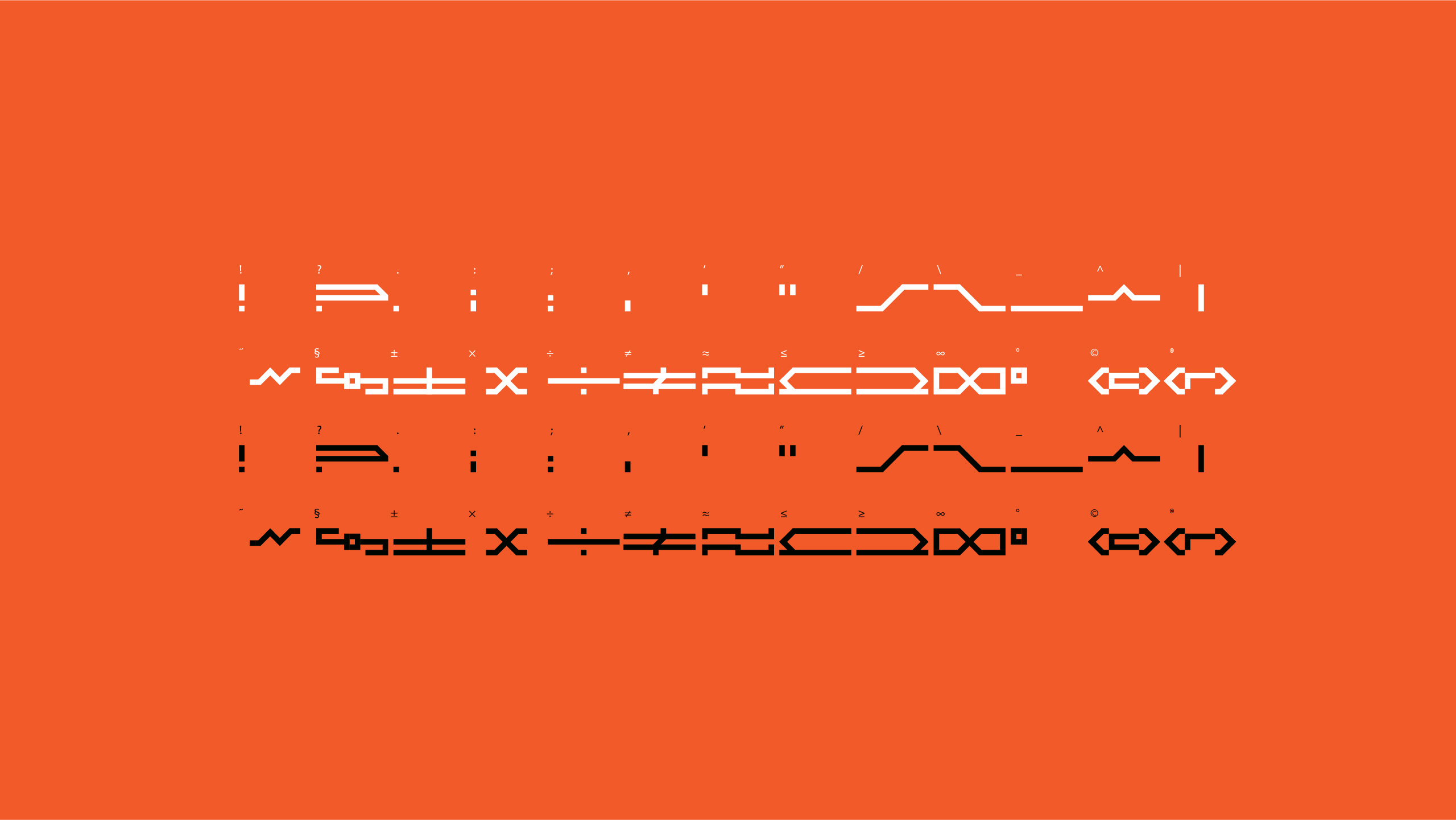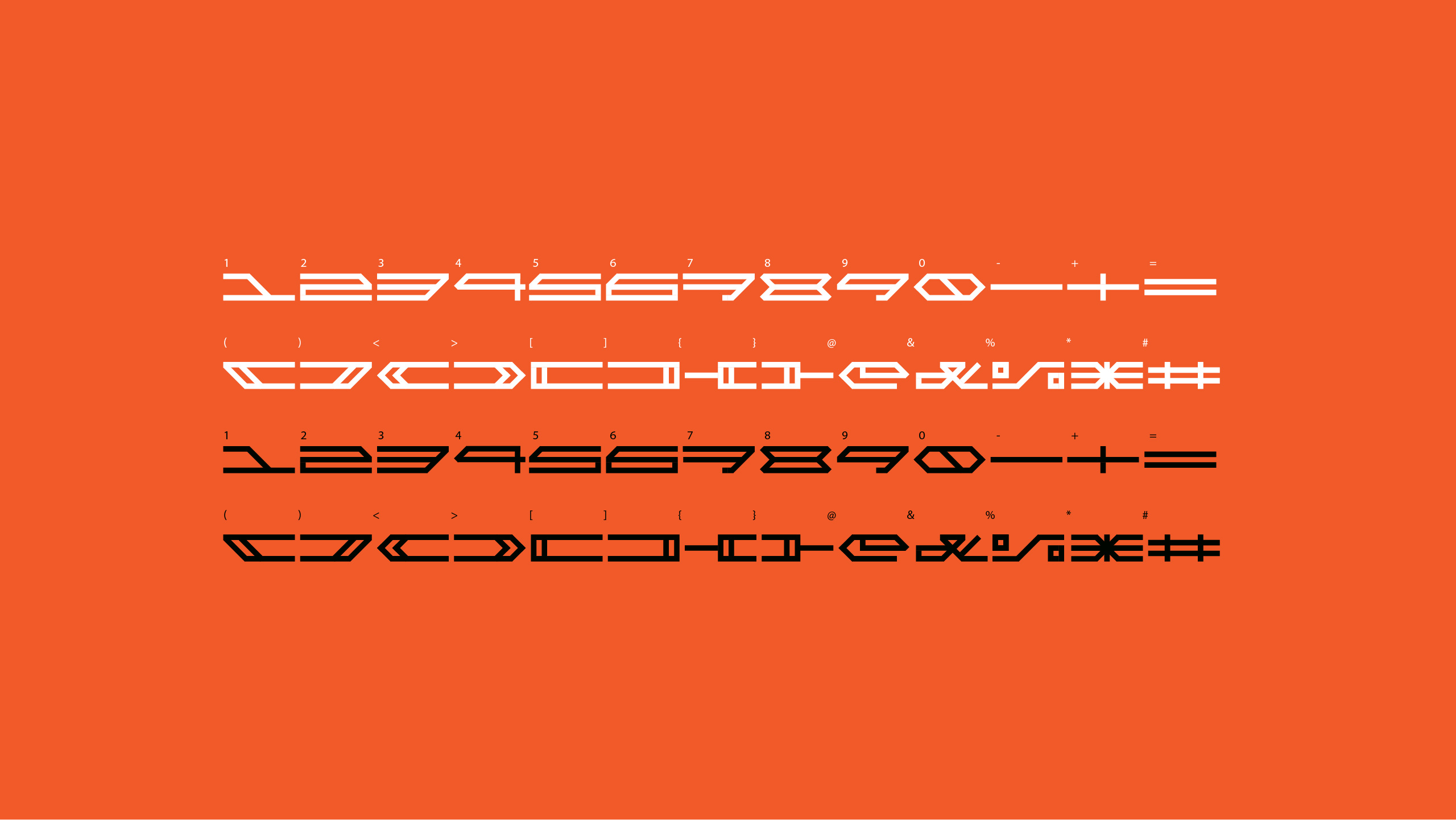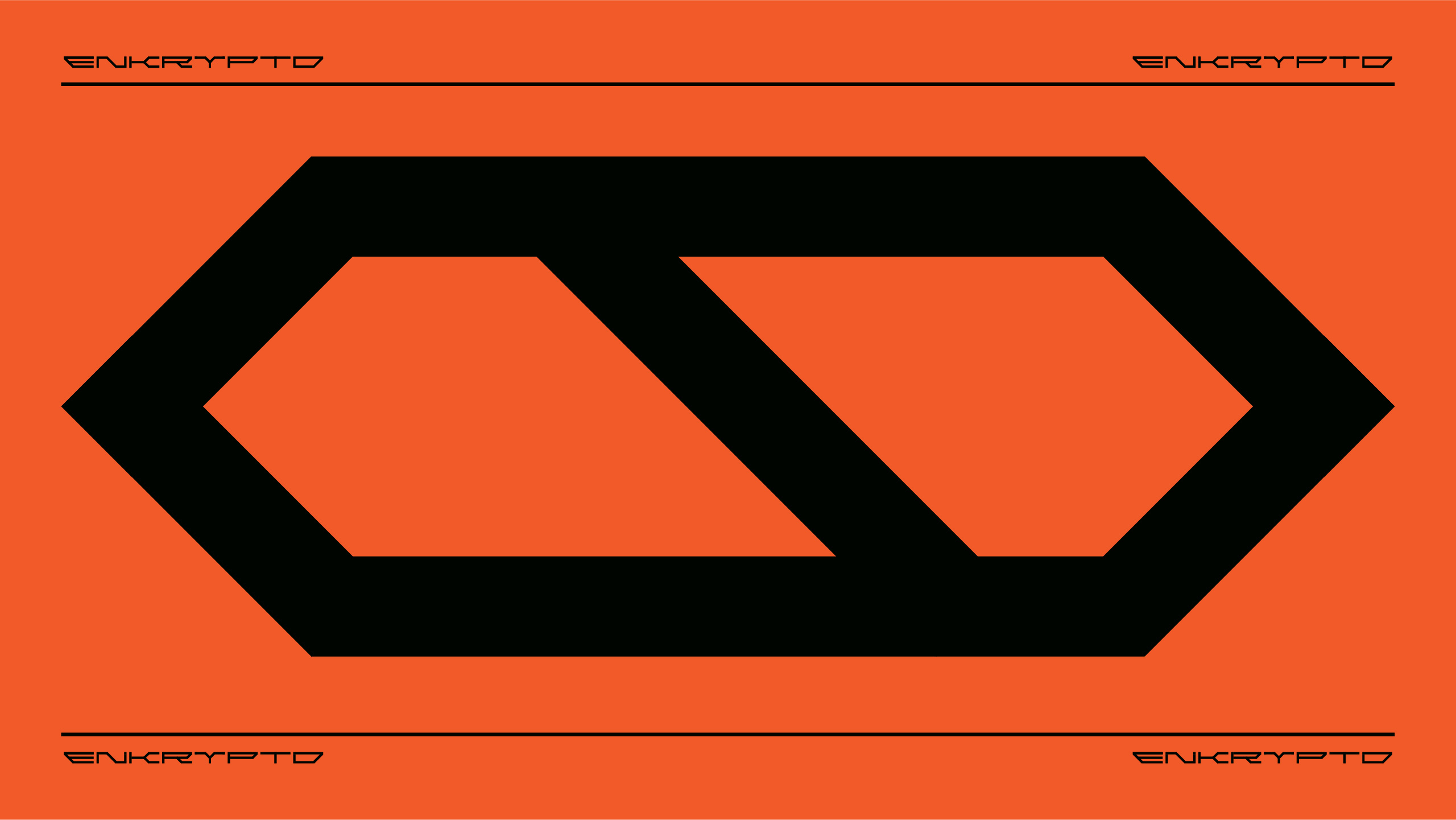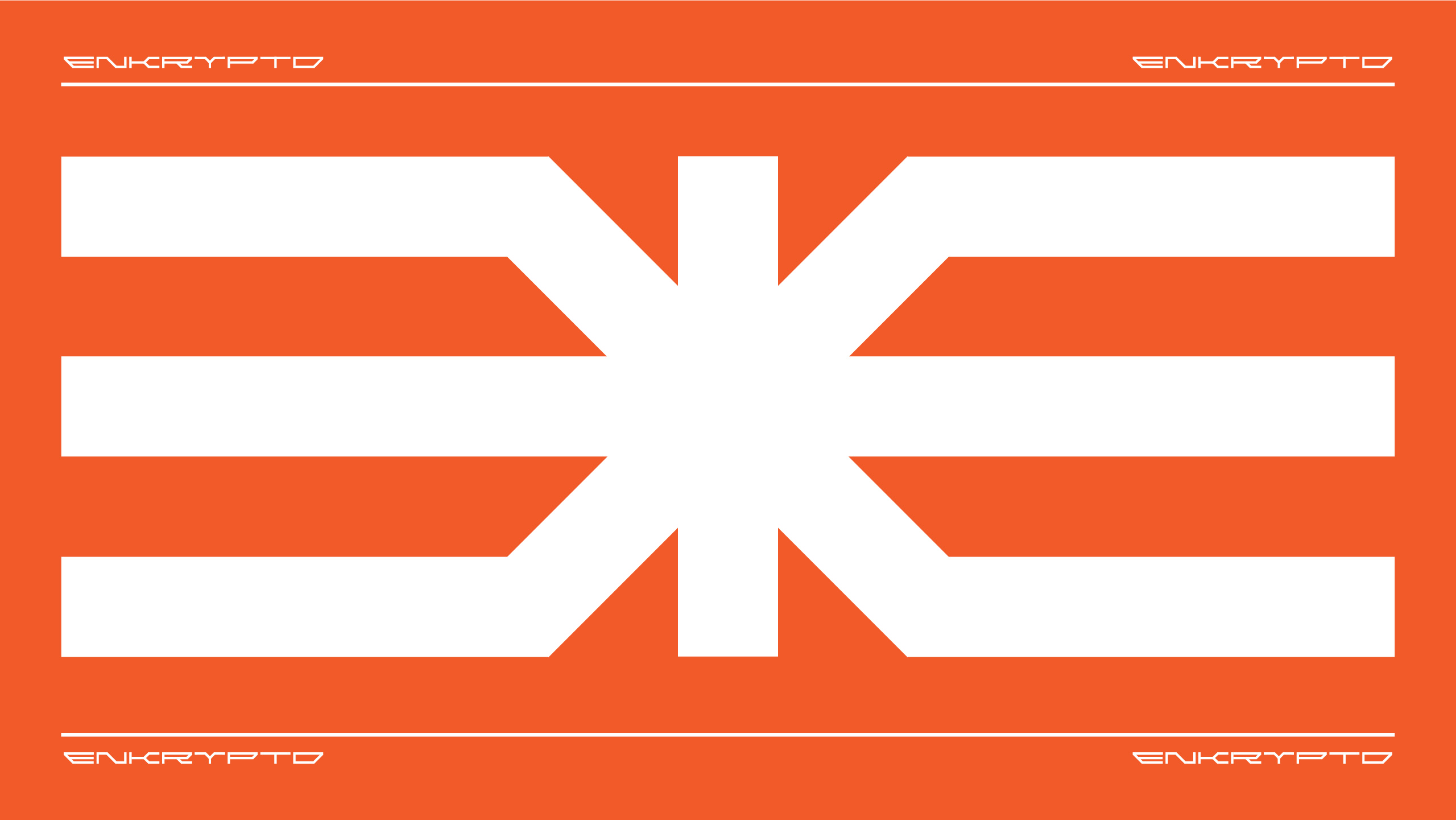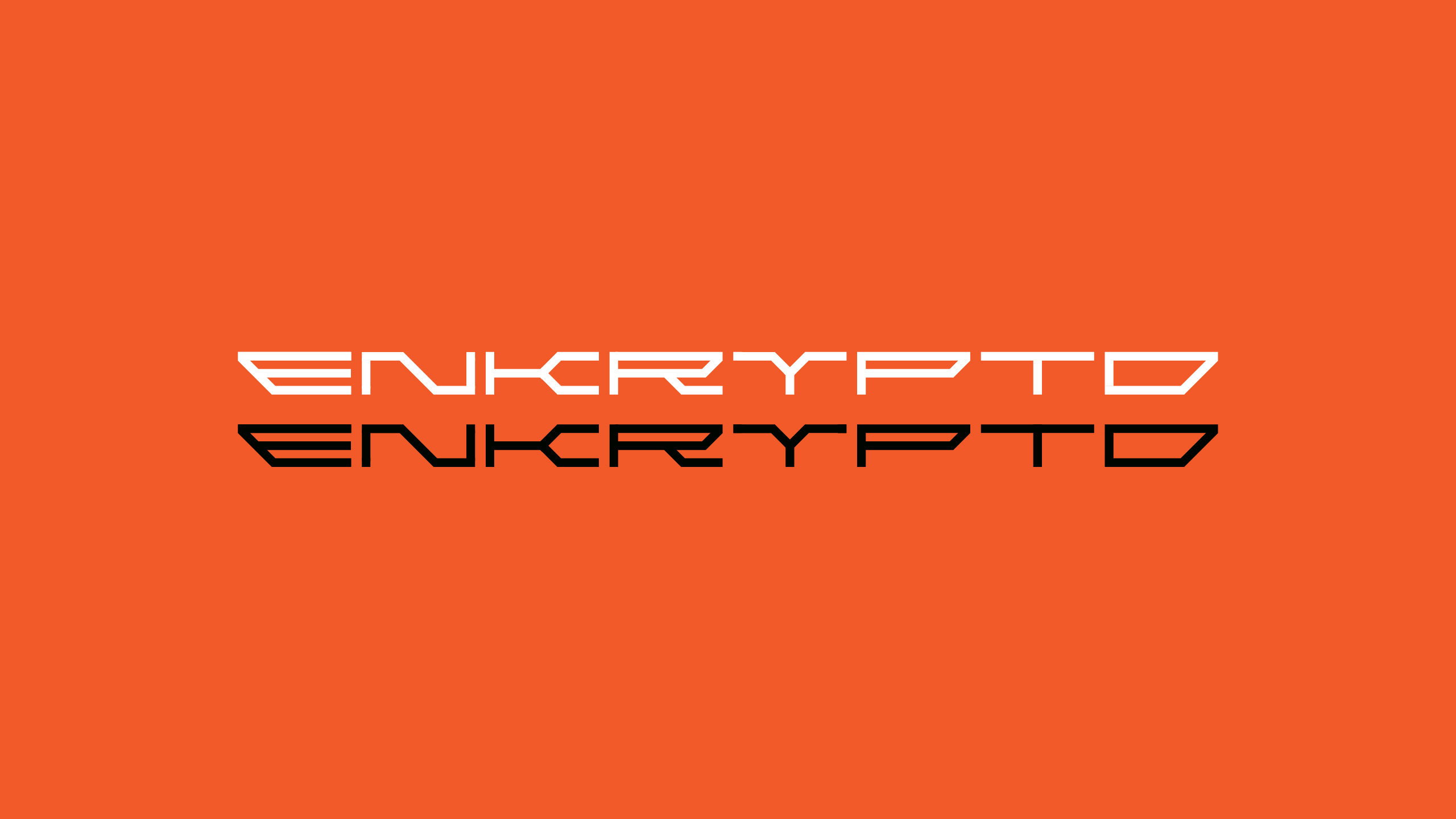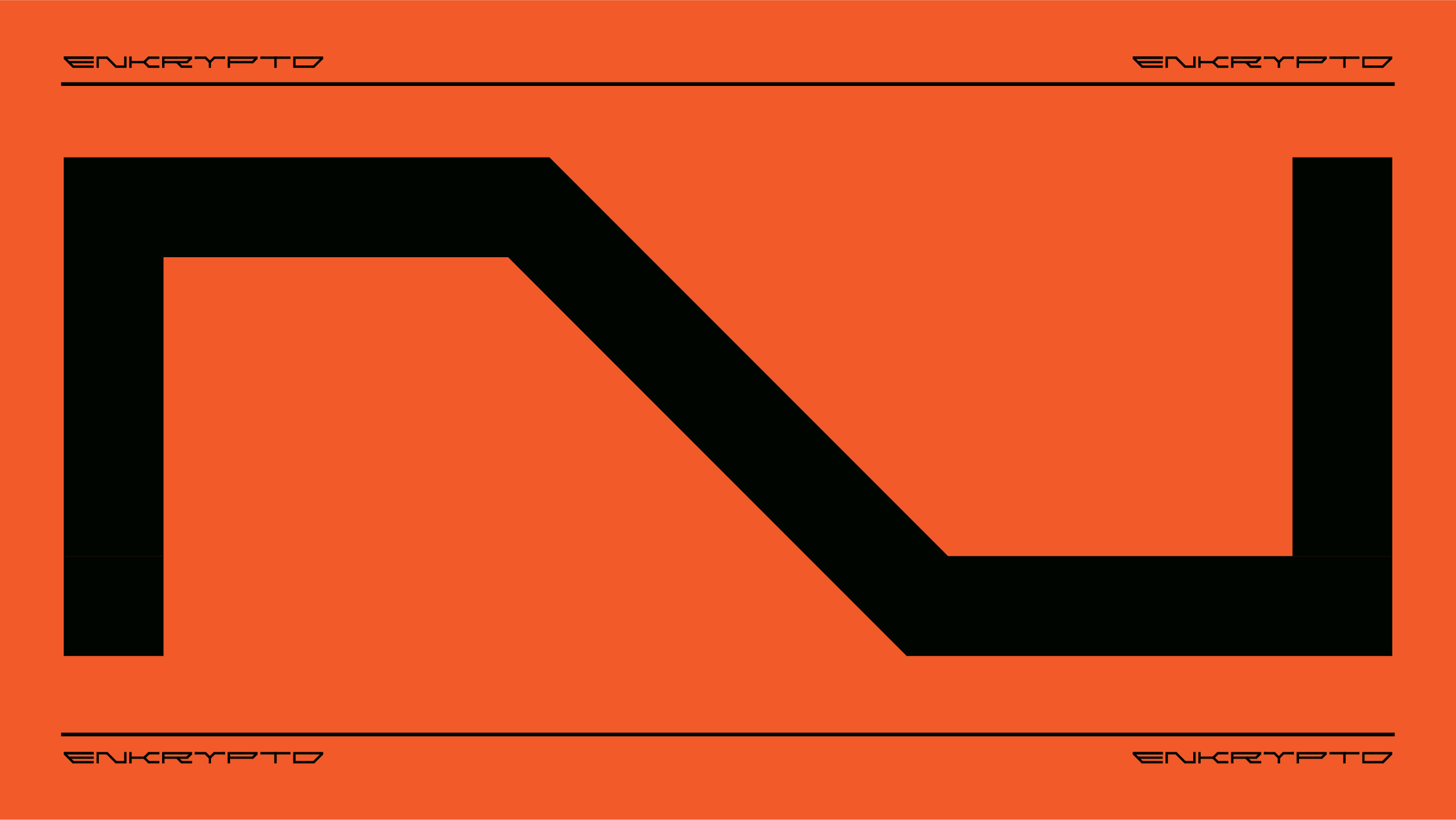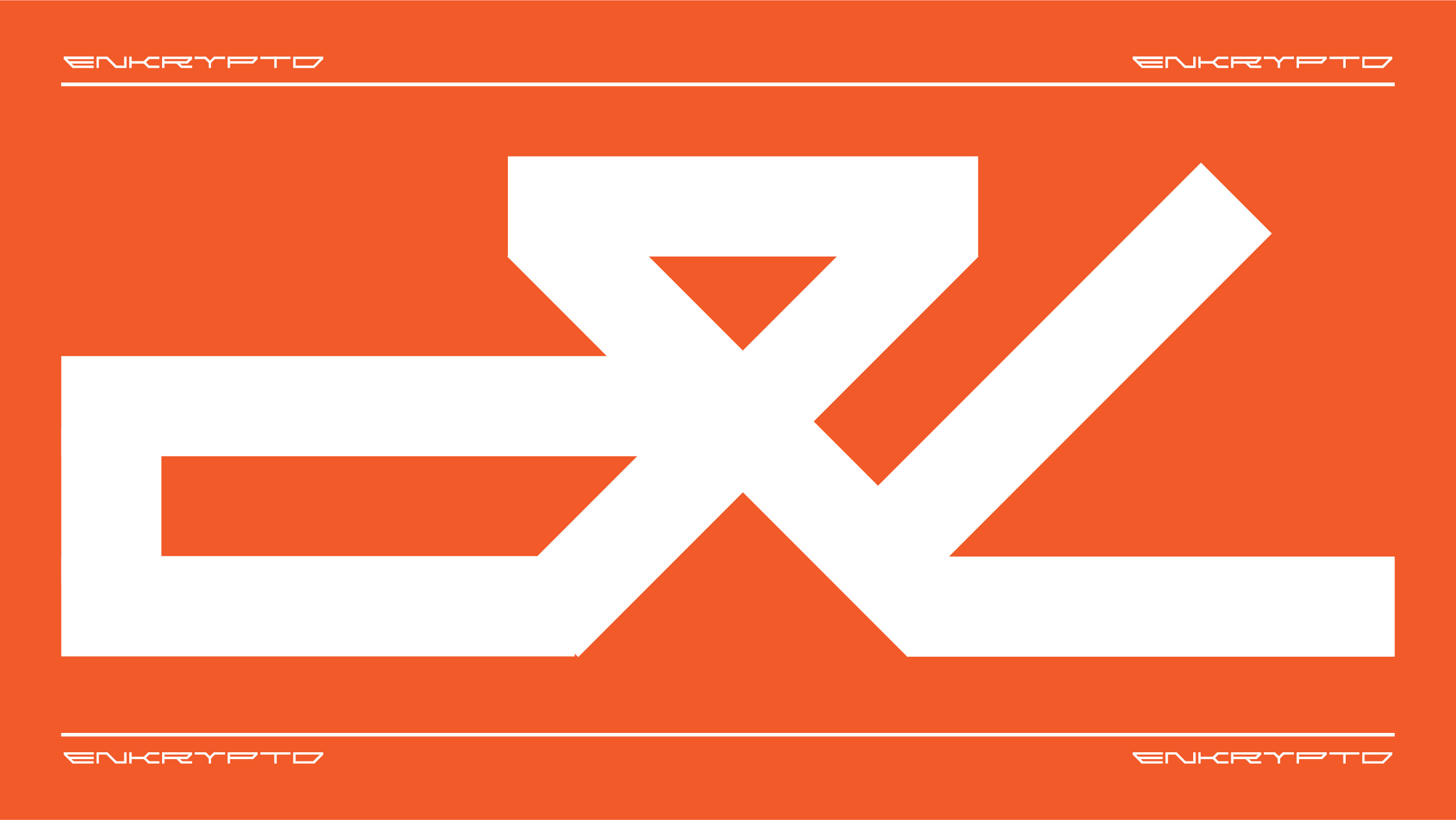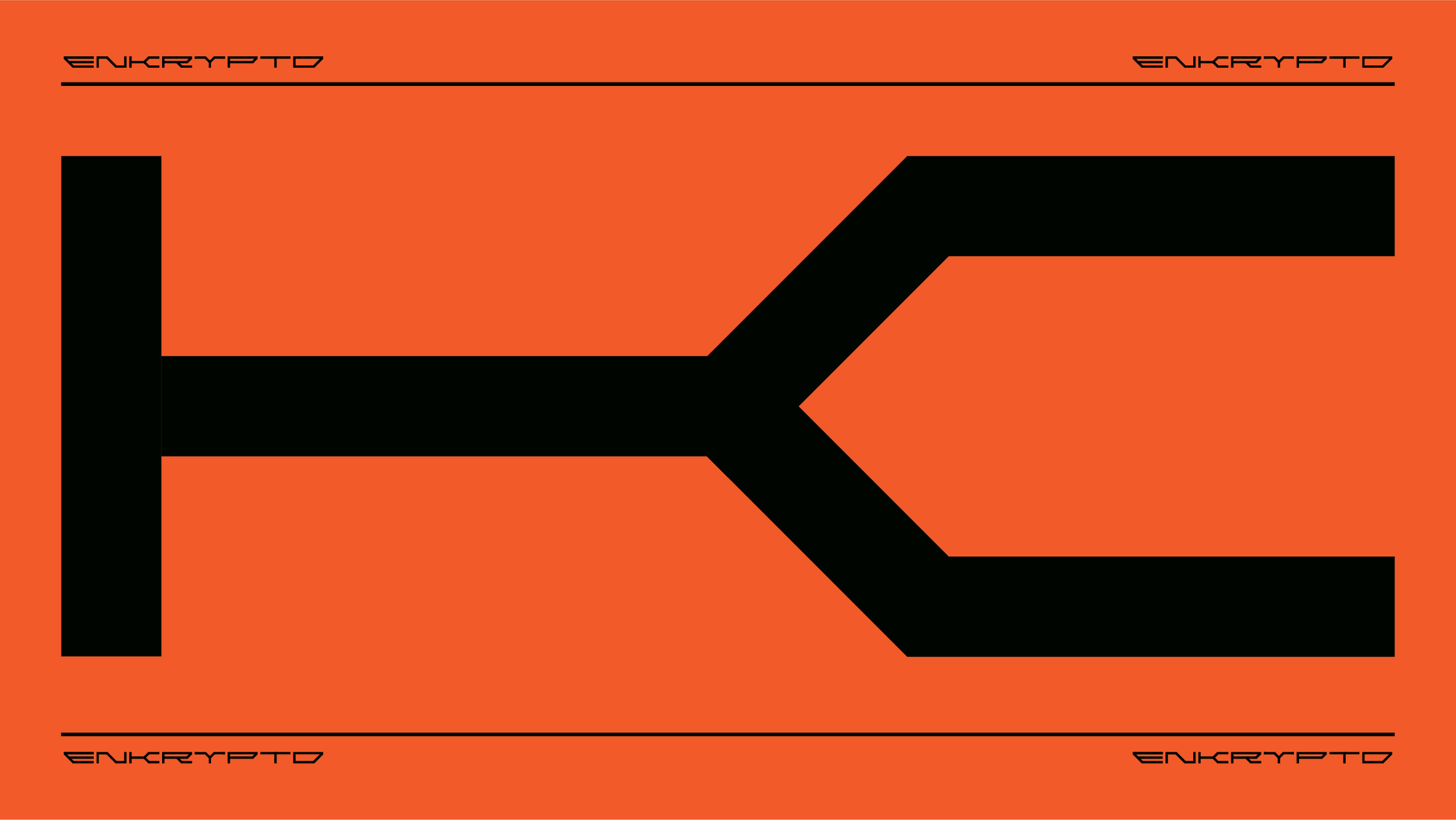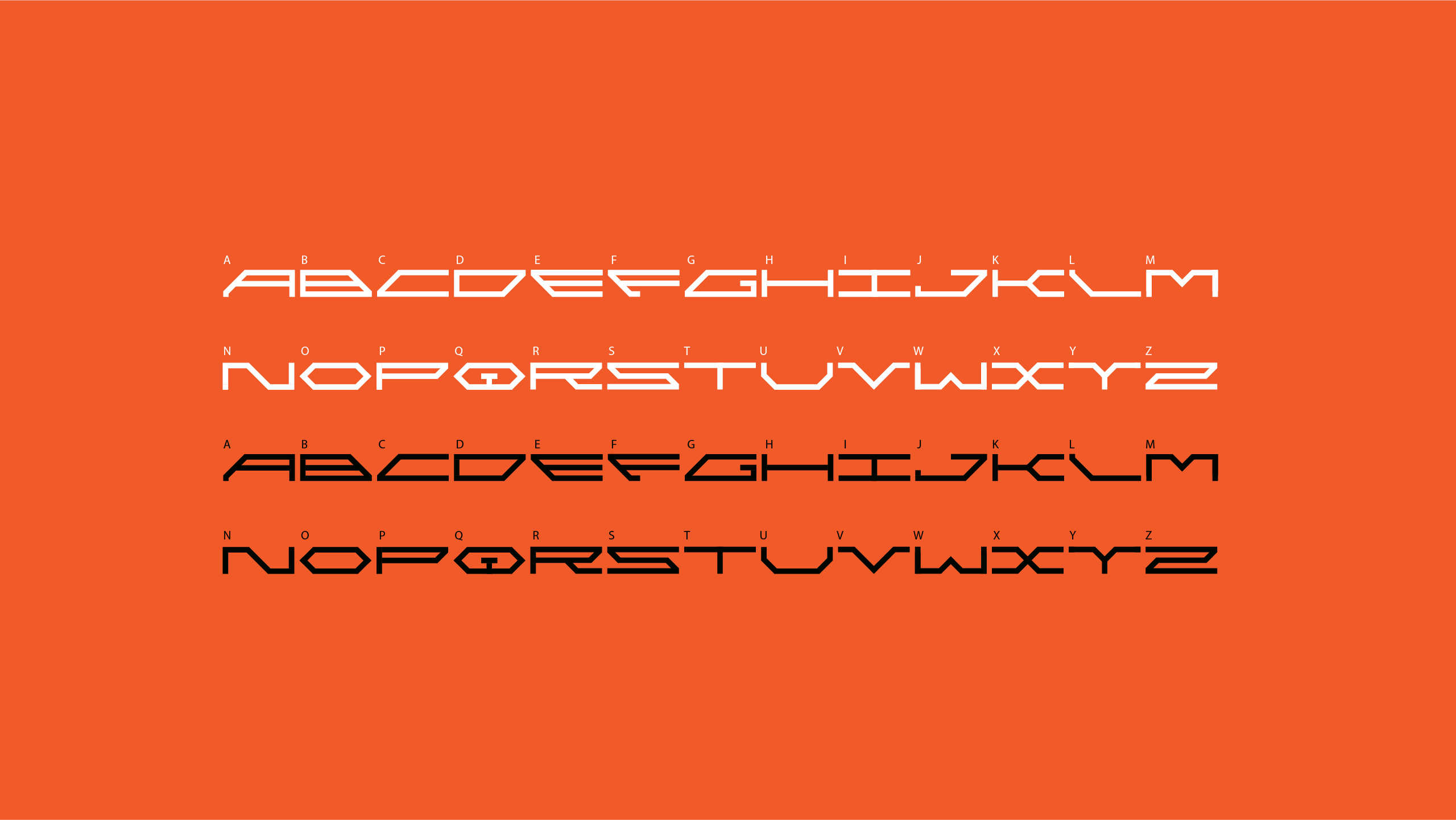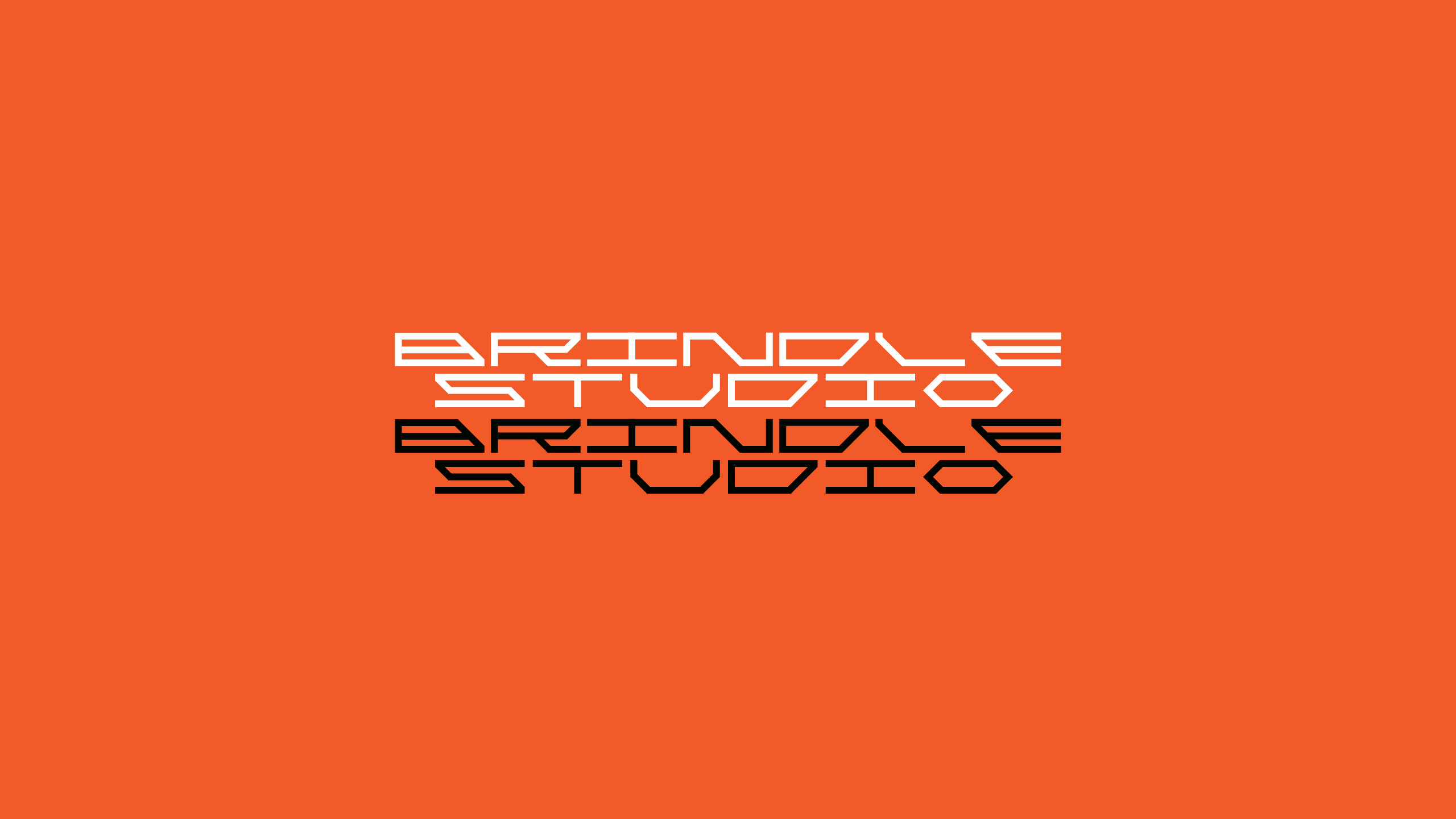
Enkryptd Typeface
Hey Chooms! Here’s a typeface to feed your inner netrunner as you delve deep into waves of nightcity. High contrast, sleek and wide with those sweet tight angles. Not forgetting those dystopian currencies and obscure characters that keep your code kleen and enkryptd.